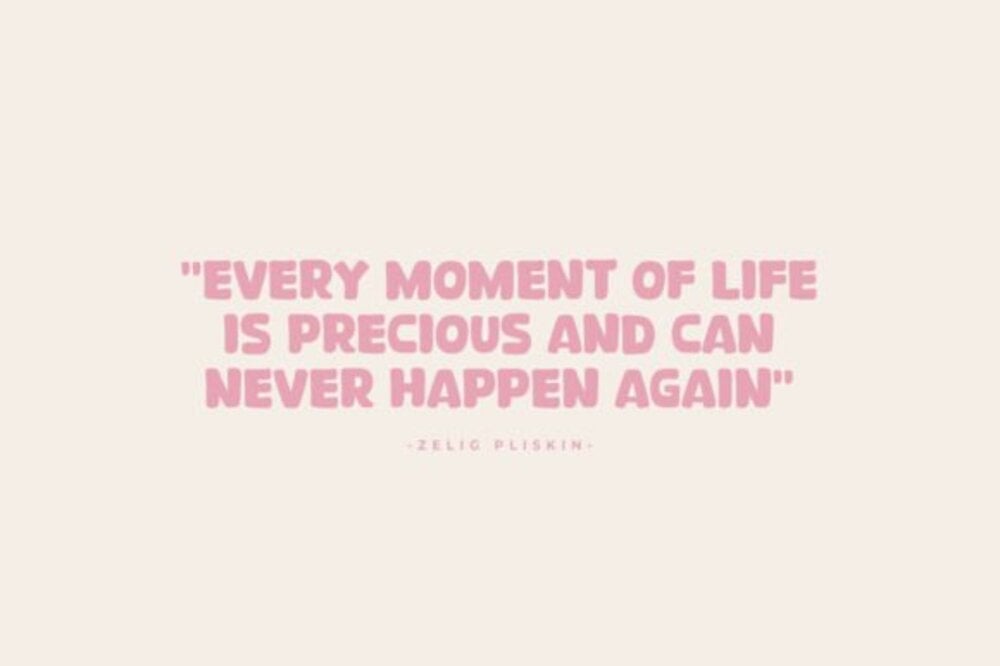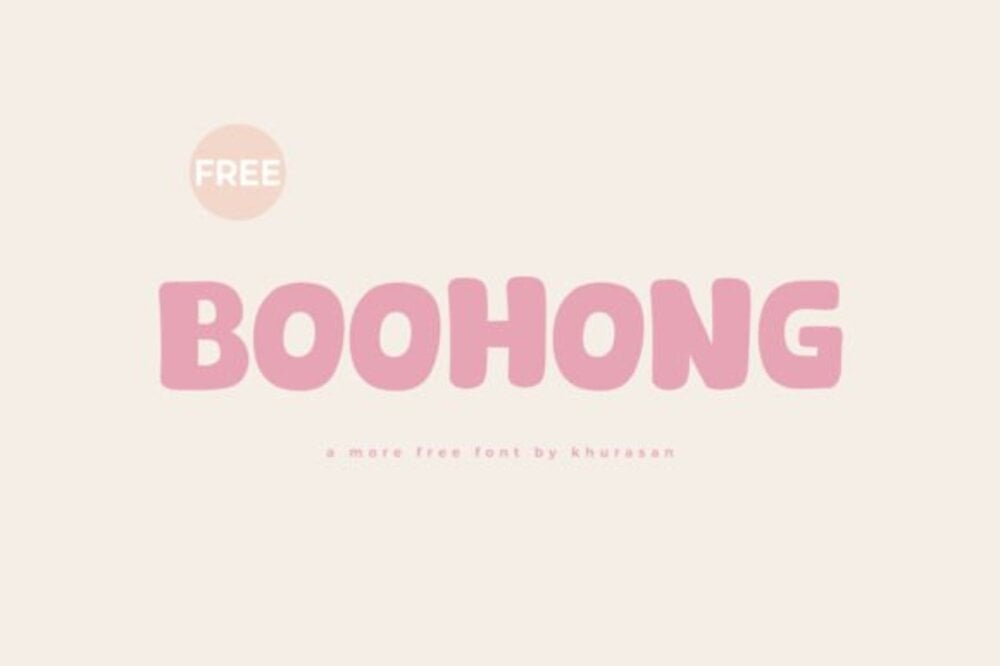
Boohong Font
Boohong Font is a unique and captivating typeface that blends modern elegance with playful charm. Featuring artistic letterforms with smooth curves and subtle detailing, it’s perfect for creating distinctive logos, branding, wedding invitations, posters, and social media graphics. Its one-of-a-kind style ensures your designs exude creativity and sophistication. Whether for professional or personal projects, Boohong Font adds a memorable and unique touch to elevate your visual storytelling.